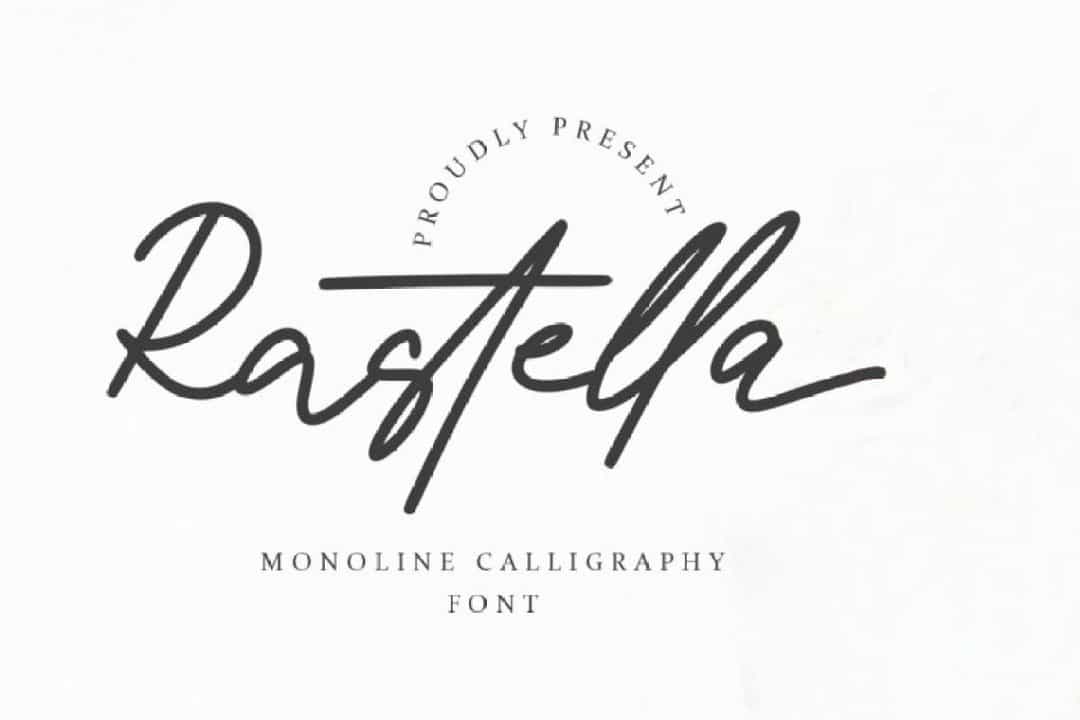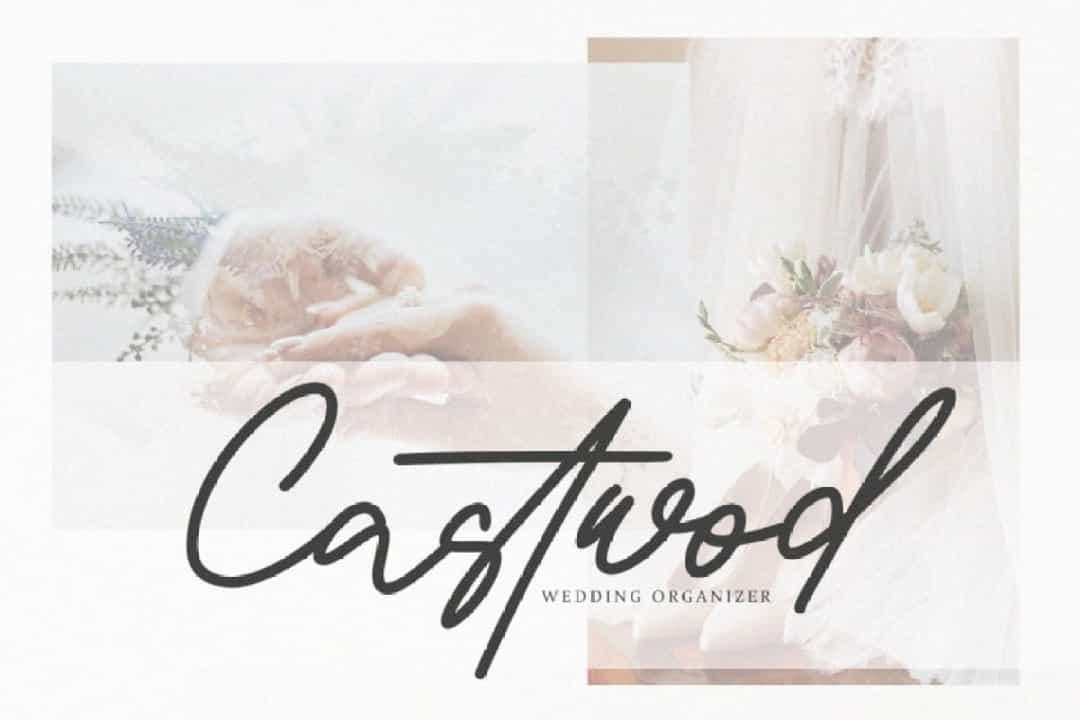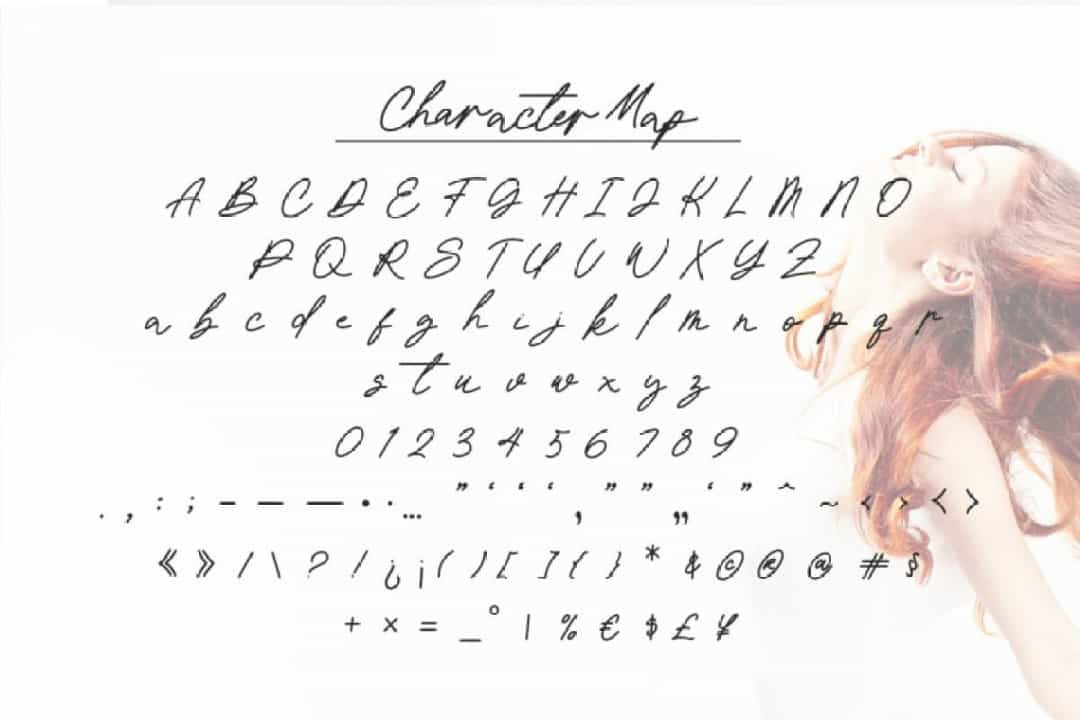
Rastella Font
Rastella is a beautiful monoline script font with realistic and informal appearance that is perfect for branding, logo design and lettering, logotype, clothing & magazine, publication covers design, posters for shopping bags & t-shirts, book covers photography special events and any other design related projects.